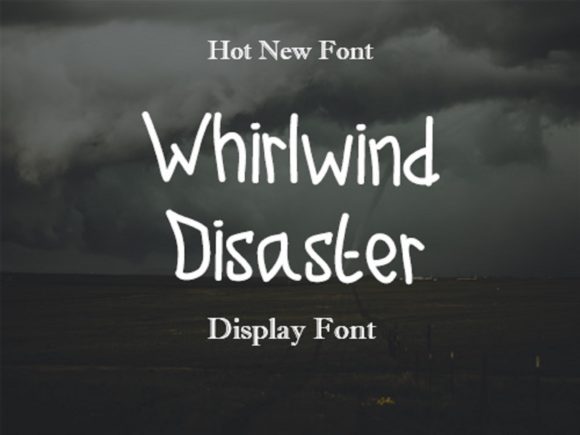
Prepare to be captivated by Whirlwind Disaster, a matchless script font that exudes individuality and charm. Its captivating strokes, reminiscent of a skilled calligrapher's hand, bestow an aura of sophistication upon any project it graces. With its playful and energetic nature, Whirlwind Disaster is the ideal choice for adding a touch of whimsy and dynamism to your designs.
Whirlwind Disaster's inherent versatility makes it a treasure trove of possibilities. It effortlessly complements a diverse array of projects, from eye-catching logos and branding materials to vibrant social media graphics and web designs. Its ability to infuse life into presentations, invitations, and greeting cards is simply magical, transforming ordinary words into captivating works of art.
As a handwritten font, Whirlwind Disaster possesses an innate charm that resonates with audiences. Its organic and flowing appearance exudes a sense of authenticity and genuineness, making it perfect for projects that aim to connect with viewers on a personal level. Whether you're crafting heartfelt letters, designing intimate wedding invitations, or creating captivating marketing campaigns, Whirlwind Disaster adds a touch of warmth and intimacy that leaves a lasting impression.
But Whirlwind Disaster's talents don't stop there. Its bold and distinctive numbers take center stage, making it the ultimate choice for projects that demand attention. These numbers exude a confident and assertive presence, perfect for highlighting important information, showcasing statistics, or creating eye-catching headlines. With Whirlwind Disaster, your numbers will never go unnoticed, leaving an indelible mark on your audience's minds.